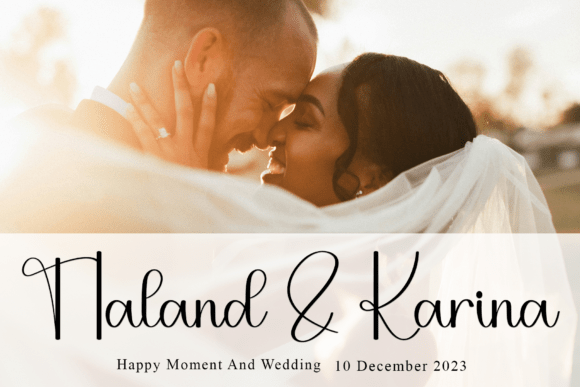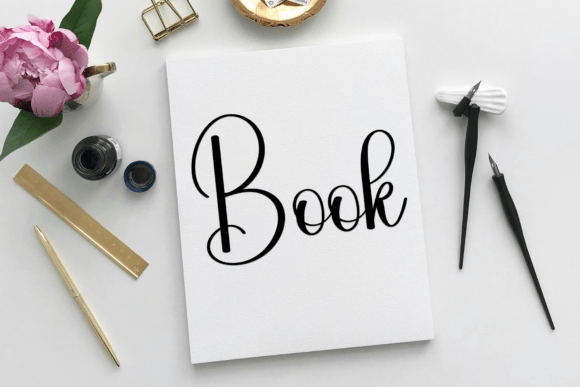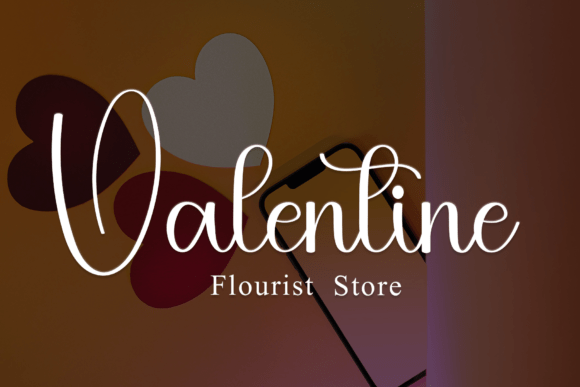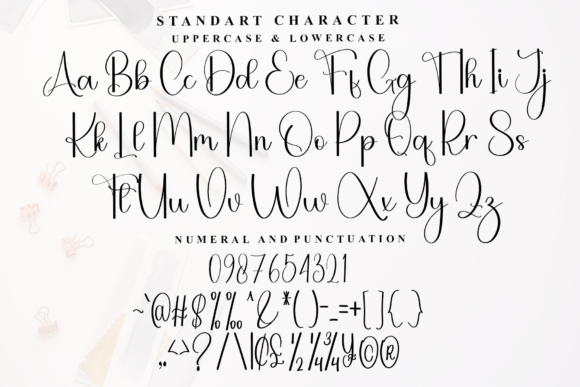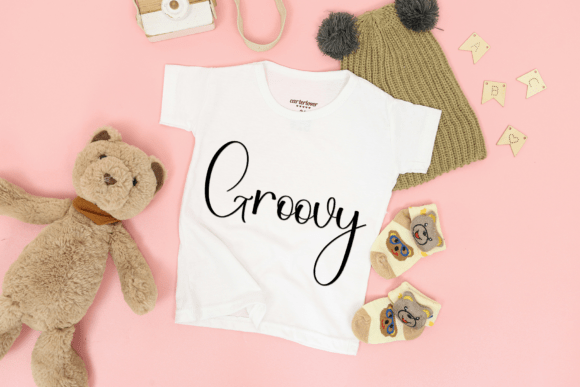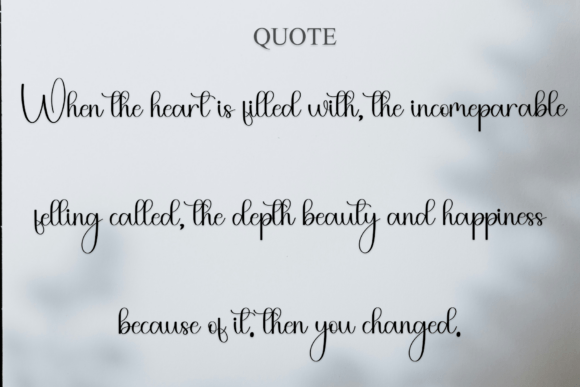
Introduction to Other Font
Do you ever find yourself lost in a sea of design inspiration, searching for that perfect font to elevate your next creative project? I know I do. It’s that moment when you stumble upon a font that speaks to you, and you just know it’s going to be the game-changer your design needs. For me, that font is Other Font. Its soft, unique touch and distinctive strokes give it a special character that sets it apart from the rest.
As a valuable design resource, Other Font is perfect for designers looking to add a touch of elegance and sophistication to their work. Whether you’re working on a design project that requires a high-quality font with a transparent background or simply want to enhance your creative project with a beautiful and eye-catching font, Other Font is the perfect choice. And the best part? It’s available for free download, making it an accessible design tool for creatives of all levels.
With its versatility and wide range of applications, Other Font is an essential addition to any designer’s toolkit. Compatible with various platforms, including Windows and open-source platforms, this natural font style is ideal for a wide range of products, from logos and branding to crafts and other creative works. In this article, we’ll dive deeper into the world of Other Font and explore its unique features, uses, and benefits for designers.
Key Features of Other Font
- High-quality design resource with a transparent background, ideal for creative projects.
- Supports various languages, making it a versatile design resource.
- Designed to provide a unique and creative touch to any project, with a bold and modern aesthetic.
- Perfect for graphic designers, digital artists, and anyone looking for a high-quality font for their next creative project.
Honest Review: Other Font
I recently stumbled upon Other Font, a free download that’s been making waves in the design community. At first glance, I was impressed by its high quality and versatility. It’s a great addition to any design resource, perfect for creative projects that require a touch of sophistication.
Here are some things that really work well: ✨
- Transparent background support: This is a huge plus for designers who need to layer their fonts without any visual clutter.
- Wide character set: I was able to use Other Font for a project that required multiple languages, and it performed flawlessly.
However, I did encounter a few limitations: ⚠️
- Limited font styles: While the font itself is beautiful, the lack of additional styles (e.g. italic, bold) can be a drawback for some designers.
Overall, I’m impressed with Other Font’s potential and would definitely recommend it for personal or small-scale design projects. Just be sure to use it responsibly and within the limitations outlined above.
Tips for Getting the Most Out of Other Font
For the best results, use Other Font in a design project where you need a high-quality, unique font. Experiment with different font sizes, colors, and alignments to find the perfect look for your project. You can also use Other Font as a design resource for free download, making it a great option for creative projects.
Other Font is perfect for creative projects such as logos, business cards, and social media graphics. It’s also a great option for designers who need a unique and high-quality font for their design projects. With its transparent background and high-quality design, Other Font is a valuable design resource for any creative project.